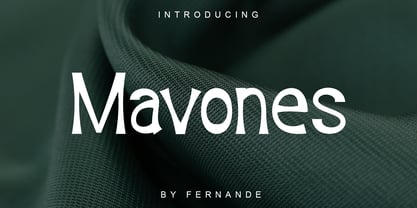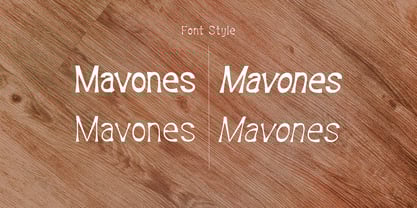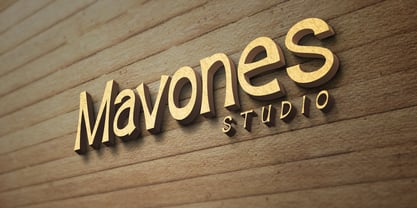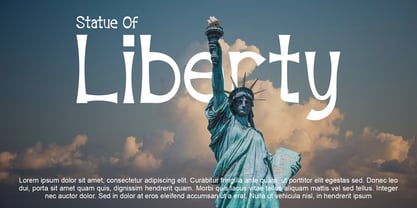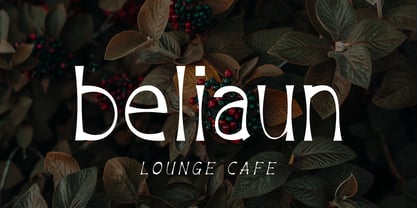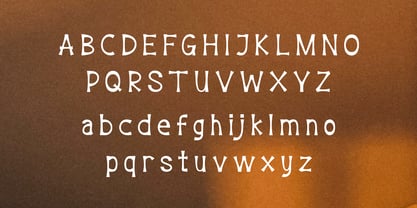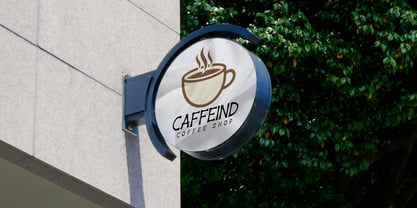
Mavones
by Fernande
The Mavones Font Family was designed by Angga Fernandi and published by Fernande. Mavones contains 4 styles and family package options. More about this family
Introducing Mavones, a display font that blends modern style with a touch of artistic flair. Its bold forms and distinctive curves give each letter a strong yet elegant character. Designed to stand out, Mavones is perfect for logos, titles, posters, and branding projects that aim to convey confidence and sophistication. This font comes in four versatile styles — Regular, Italic, Thin, and Thin Italic — offering designers the flexibility to adapt its look and feel to any creative concept.
Designers: Angga Fernandi
Current Foundry: Fernande
"Fernande is a type foundry run by Angga Fernandi, specializing in the creation of elegant and lively handwritten typefaces with great precision. With a passion for experimenting with letterforms, it creates unique and expressive fonts. Committed to quality and innovation, it strives to provide distinctive typography that enriches visual storytelling and design aesthetics."